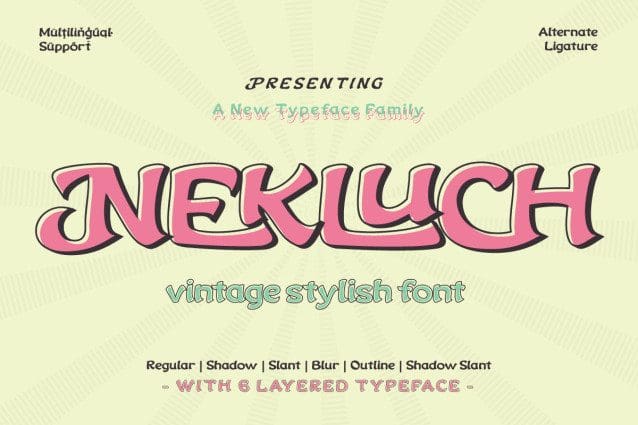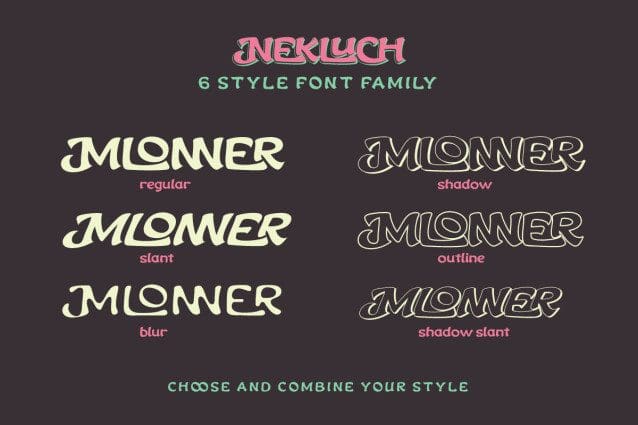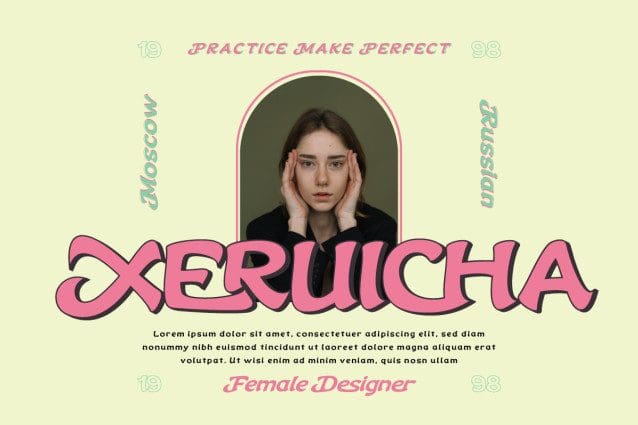
Nekluch Vintage Font
Nekluch Vintage Font is the perfect reflection of the classic elegance that designers desire. With a charming Vintage Display style, this font brings an invaluable retro feel to every project. This is the perfect solution to create a classic look and a strong, nostalgic visual branding design.
What makes Nekluch Vintage truly special is its variety of features. There is a complete family that includes regular, shadow, slant, blur, outline, and shadow slant, allowing you to express your creativity with a variety of typographic styles. Also, don’t miss the ligatures and alternates that add a unique feel to each letter.
Multilingual support ensures that you can reach a global audience. So, if you are looking for a font that not only looks beautiful but is also easy to use, Nekluch Vintage is a wise choice.